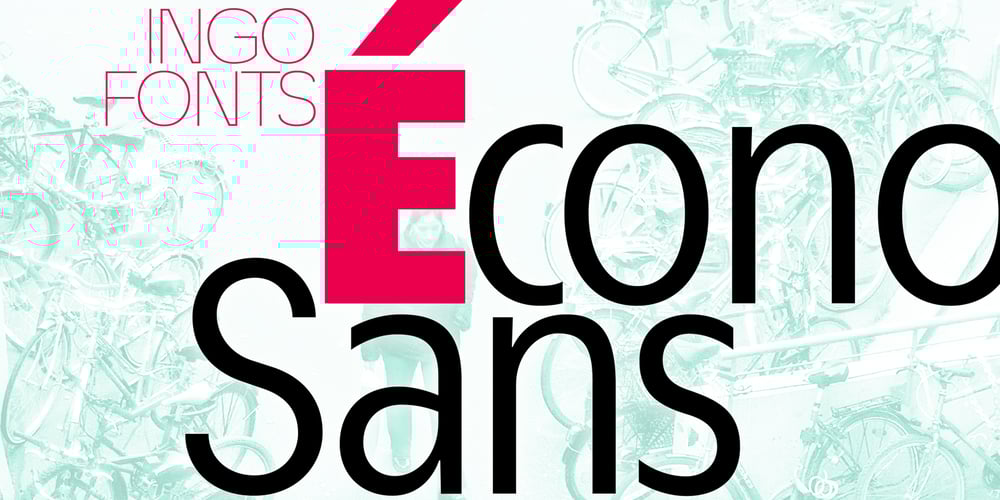
ÉconoSans Pro Font Family was designed by Ingo Zimmermann and published by Ingo. ÉconoSans Pro contains 24 styles and family package options. The most space-saving sans serif This font saves more space than any of its kind! Slim proportions, but not “condensed” Characters which nearly touch Sparse ascenders and descenders Distinct forms How close to each other can the characters of a font get? Theoretically, as close as you want. But obviously, the words should still be legible. And as any designer knows, body clearance of characters also depends on other parameters such as point size and line spacing. In practice, there are always situations in which as much information as possible has to be positioned in as little space as possible. The ingoFont ÉconoSans is made for exactly this purpose. Even the name of the font implies its function: French for the infinitive “to save” is “économiser.” Now if that doesn’t sound good…The shapes of the upper and lower case letters are completely matter-of-fact, the way a modern font has got to be. The letters c e, and s are wide open to their neighbors. An especially distinguished trait of this font is the design of the “triangular” characters v w y x k z and A V W Y Z K X M N. And the open form of B R and P is also not typical in a sans serif.The distance between letters is kept tight and often the characters nearly touch, but only nearly.With ÉconoSans you gain approximately 20% more text in a line than with »Tahoma«, and even still more than 10% compared to »Helvetica«.ÉconoSans also includes tabular figures as well as ligatures. Among the ligatures, the double mm is especially unusual and is hardly familiar, but can contribute greatly to saving space without catching the reader’s eye.